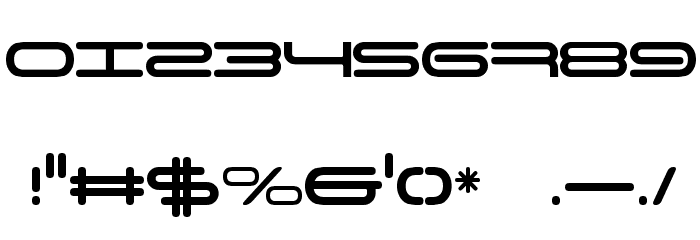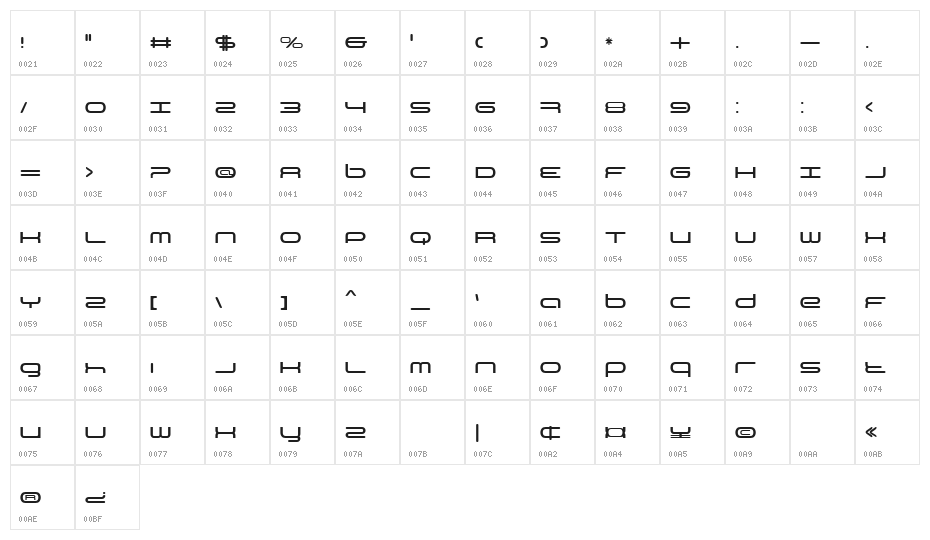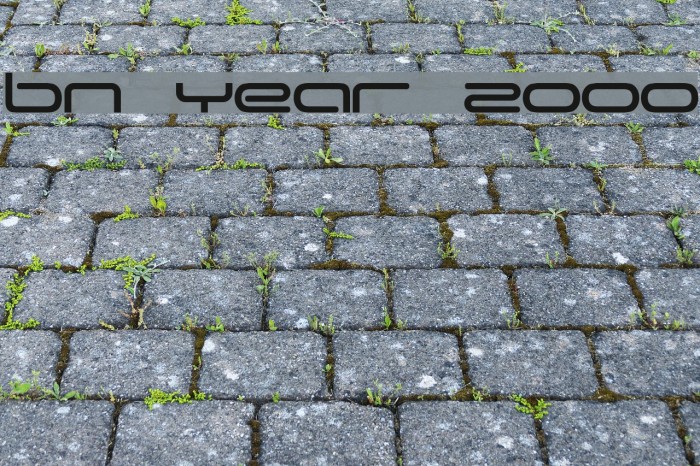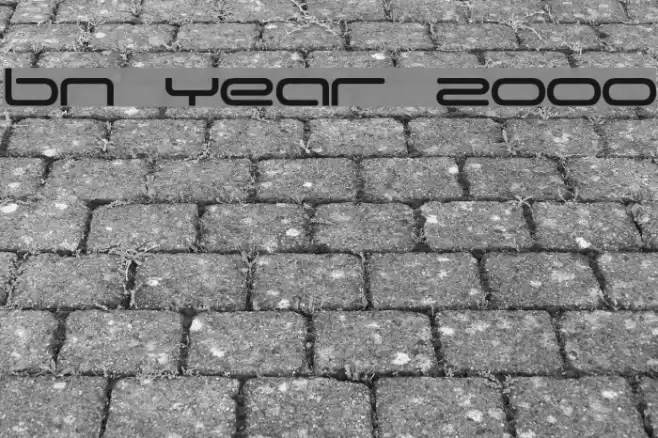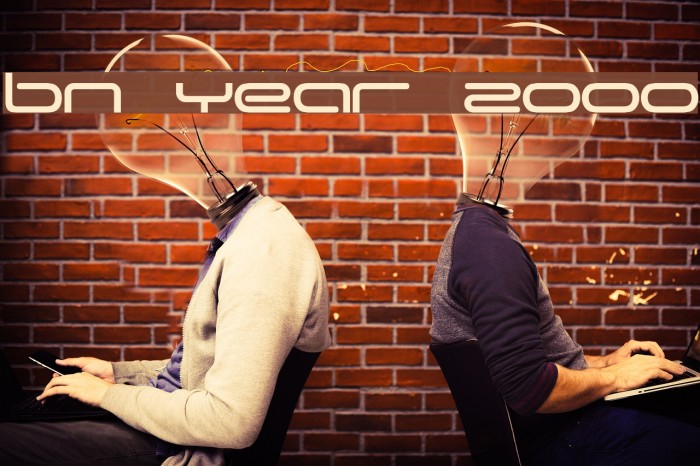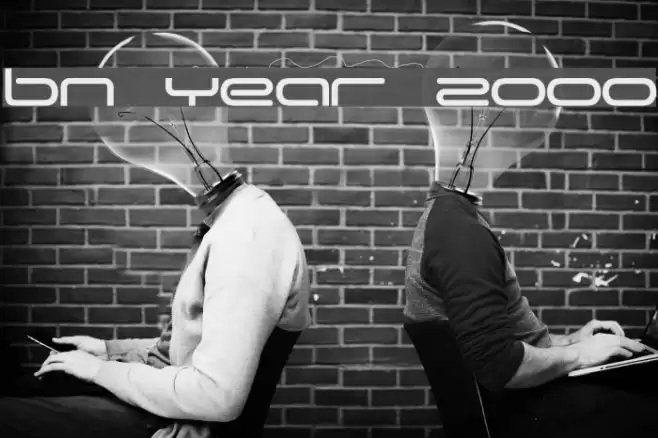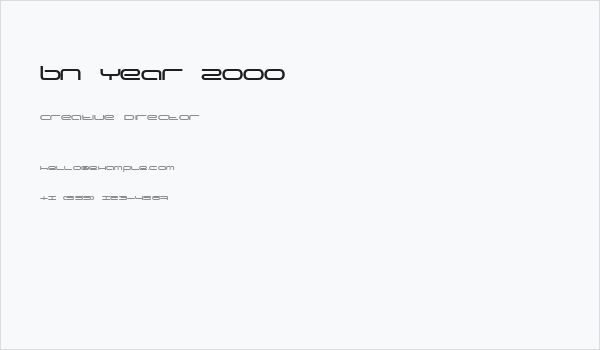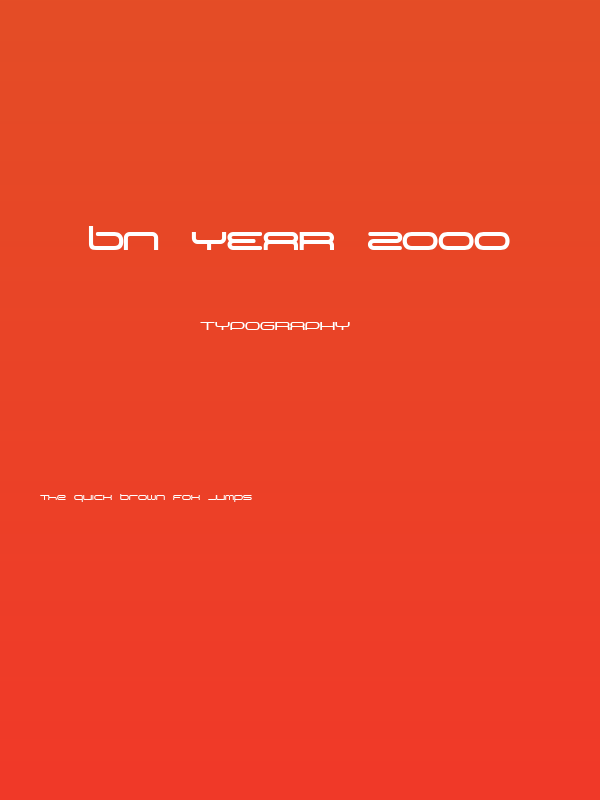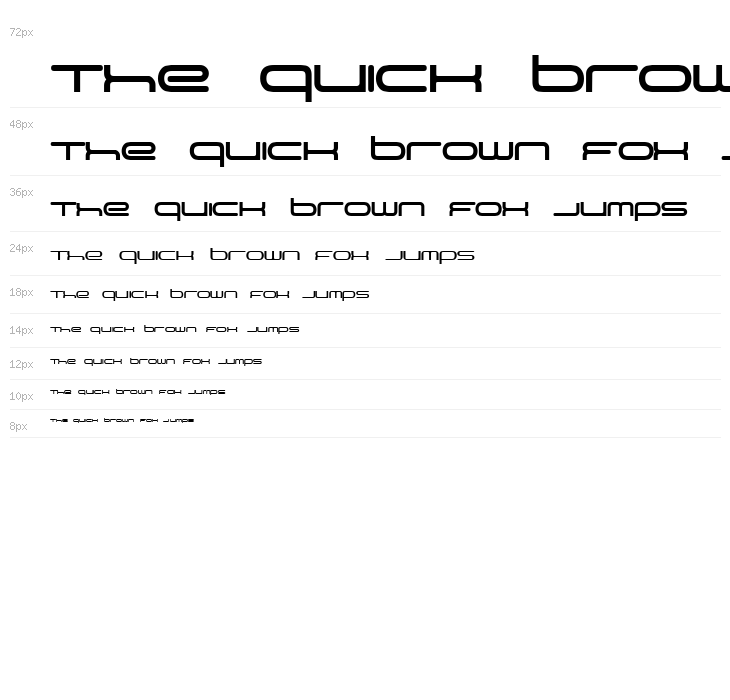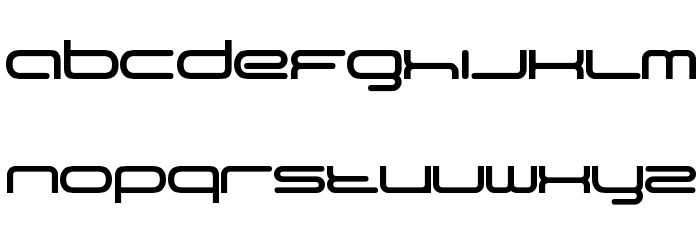
BN Year 2000 Font
This font features a futuristic and geometric design, characterized by its rounded edges and consistent line thickness. The characters are constructed with a sleek, modern aesthetic, giving them a digital or technological feel. The uppercase and lowercase letters maintain a uniform height, enhancing the font's streamlined appearance. The numerals and special characters follow the same design principles, ensuring a cohesive look across all glyphs. This font's distinct style makes it suitable for projects that require a modern and innovative touch.
| Use Case | Logos, Headlines, Digital interfaces |
| Proposed Projects | Ideal for technology branding, digital interfaces, sci-fi themed designs, and modern advertising. |